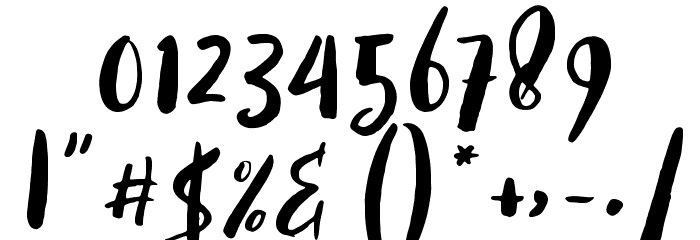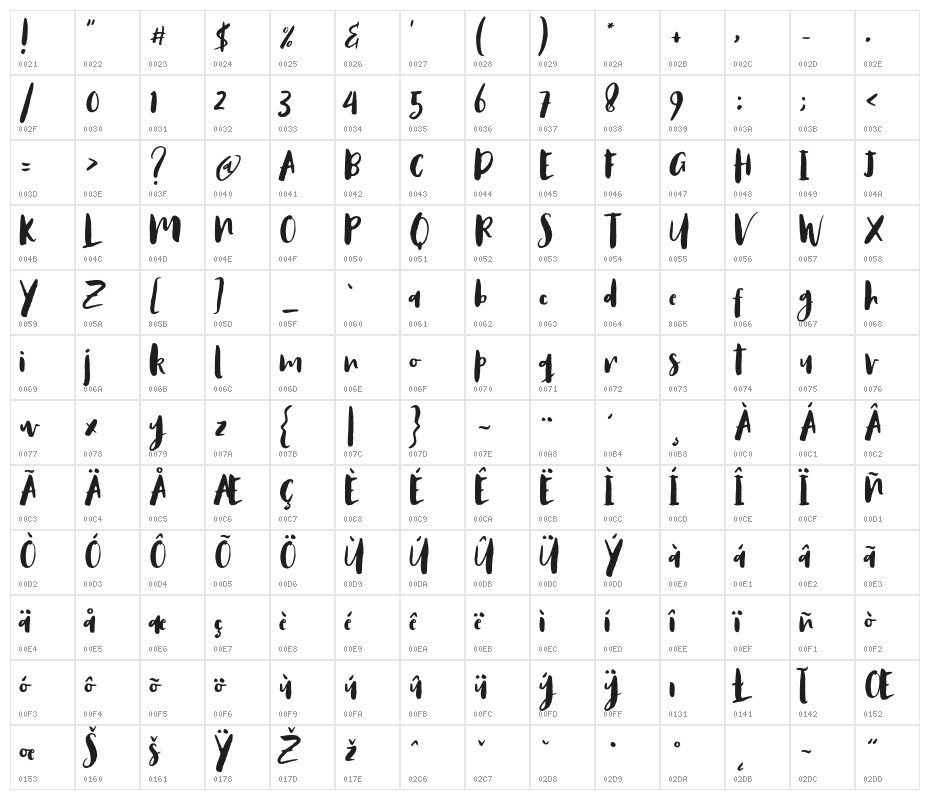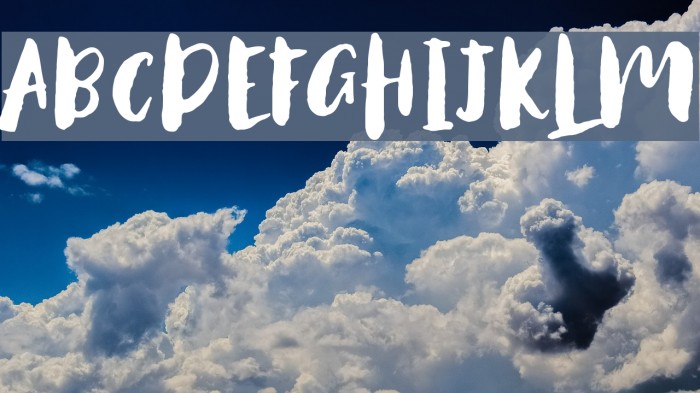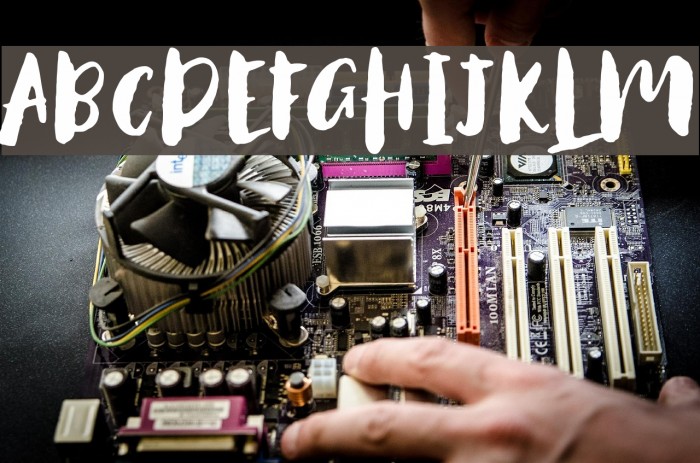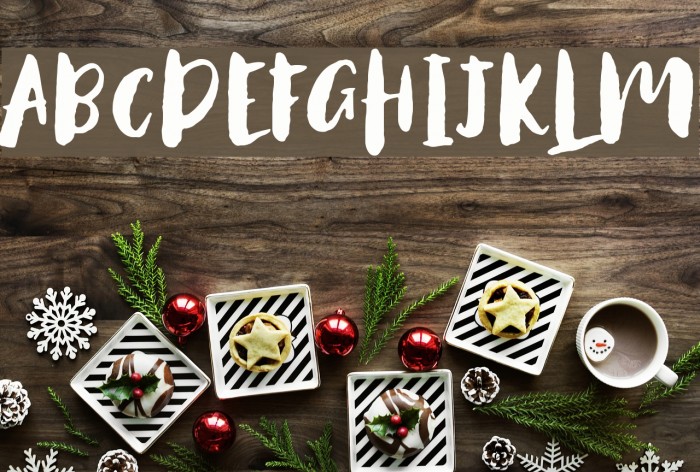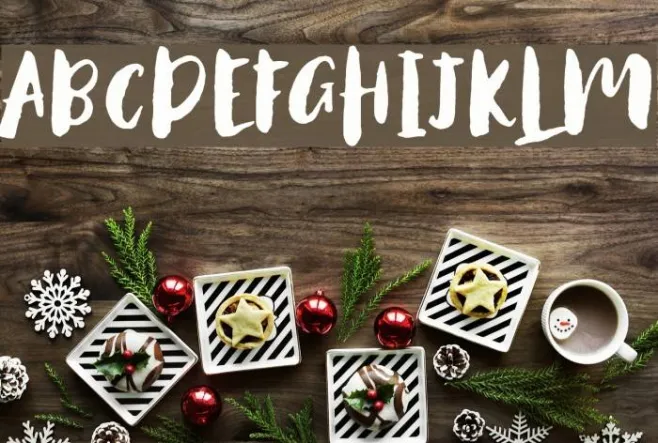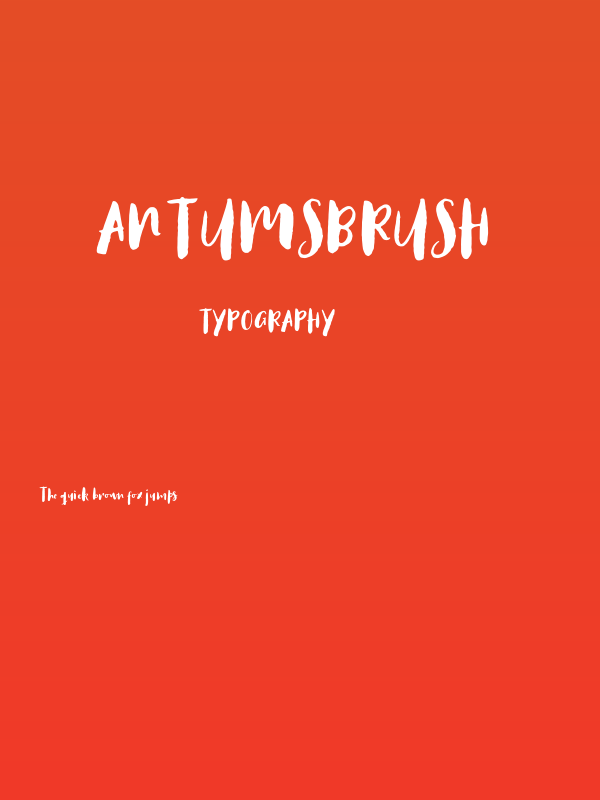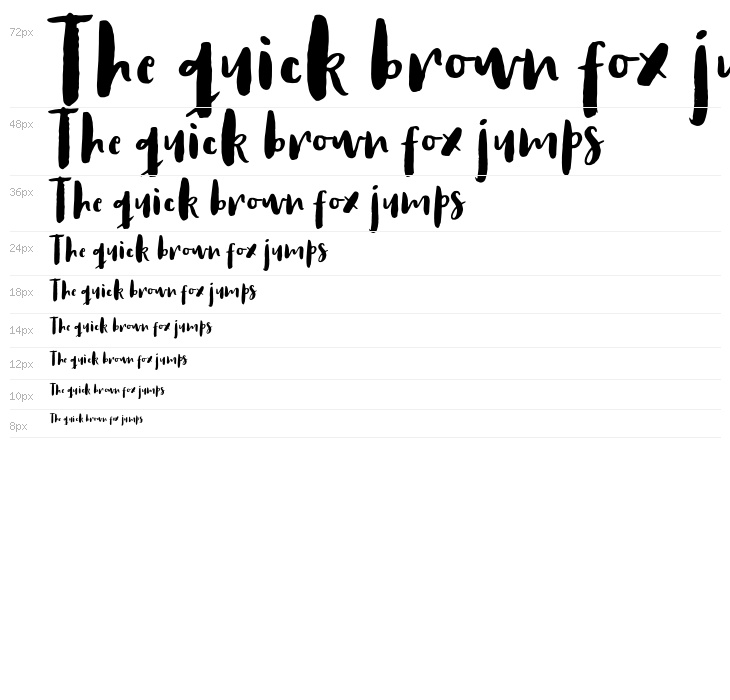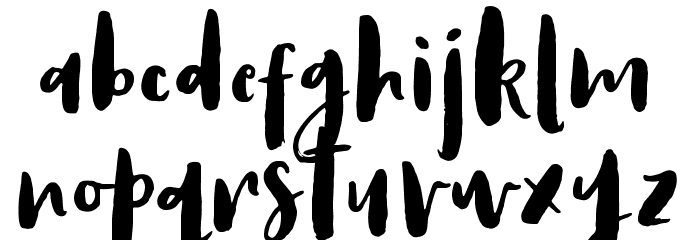
AntumsBrush Font
AntumsBrush Description
This font exudes a lively and dynamic feel, characterized by its bold, brush-like strokes that give it a hand-painted appearance. The letters have an organic flow, with varying thicknesses that add a sense of movement and energy. The uppercase and lowercase letters maintain a consistent style, while the numbers and special characters complement the overall aesthetic. This font is ideal for projects that require a personal touch or a creative flair, making it perfect for artistic designs, branding, and expressive typography.
| Use Case | Logos, Headlines, Artistic designs |
| Proposed Projects | Ideal for branding, artistic designs, posters, and expressive typography. |